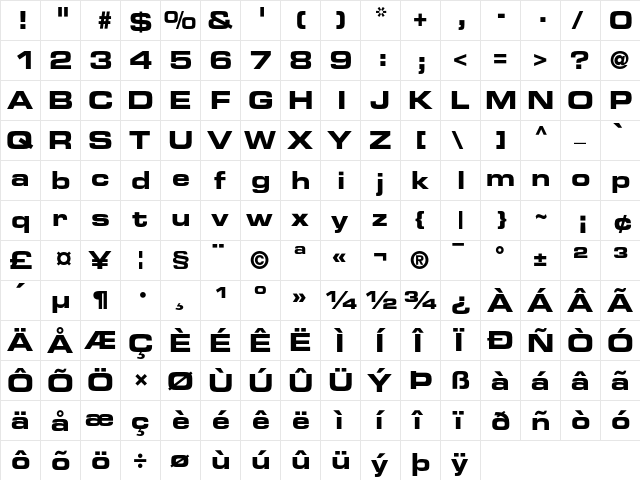
Eurostile Bold Extended #2 Font Preview
Eurostile Bold Extended #2
Design Context for Eurostile Typeface
Eurostile takes a measured approach to typography — its balanced proportions and neutral character make it a reliable workhorse for both digital and print work. The heavy weight commands attention and anchors typographic hierarchies.